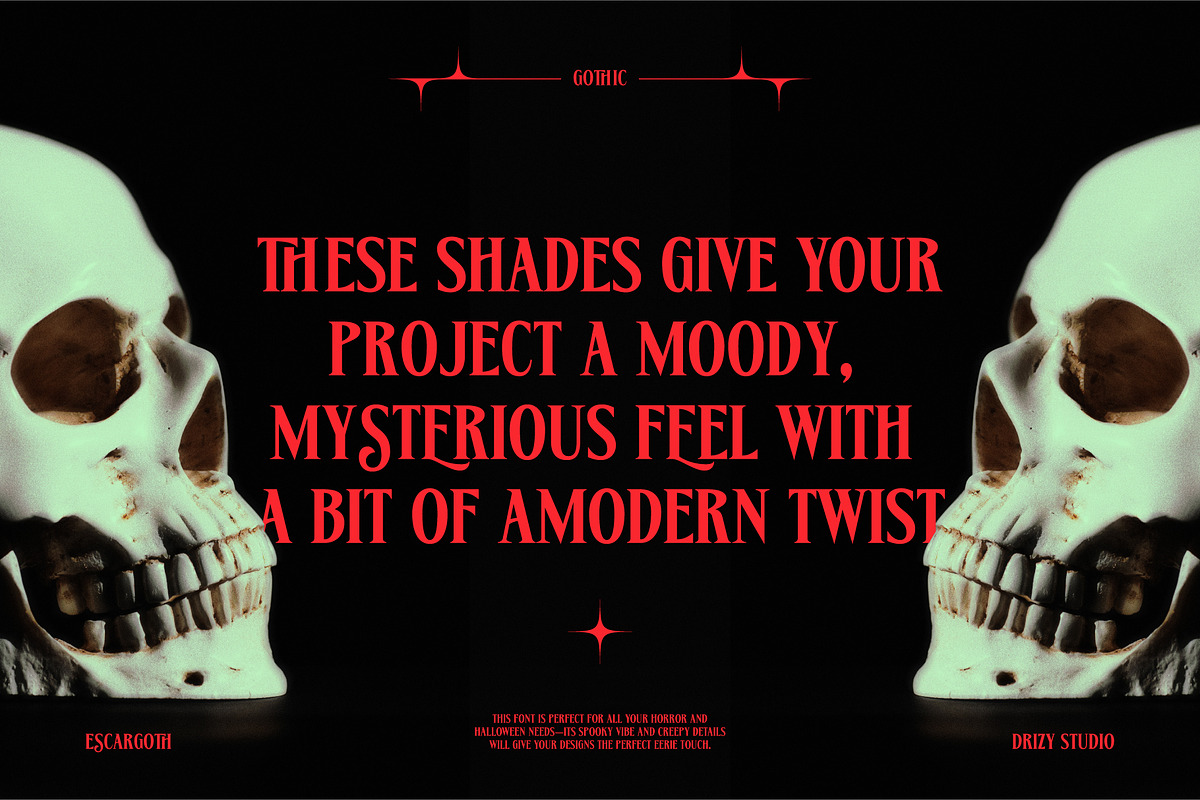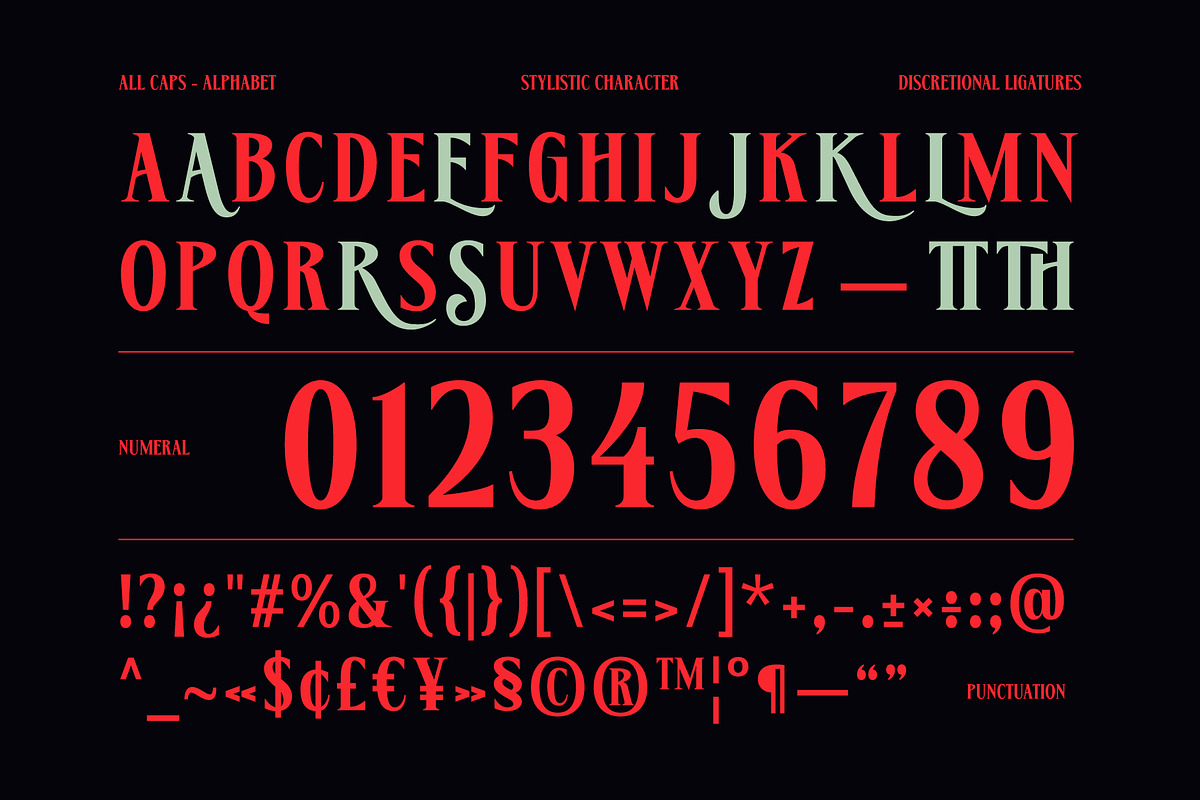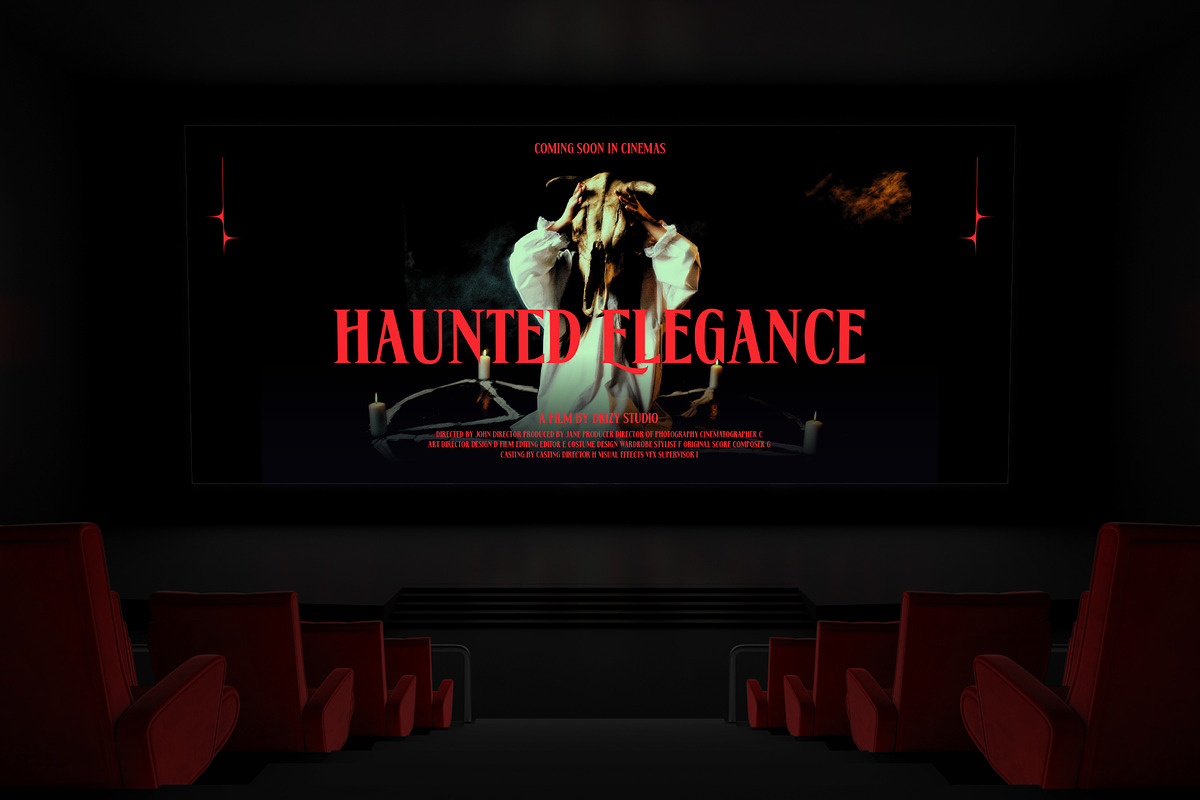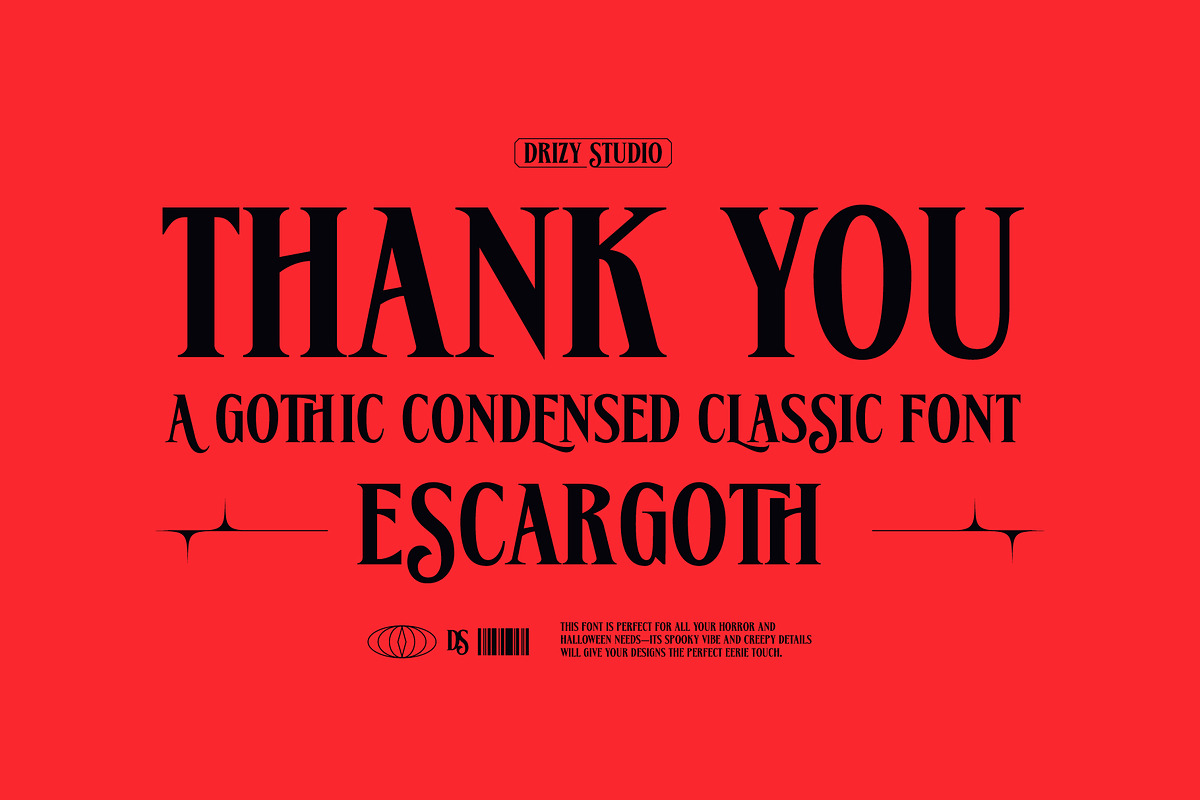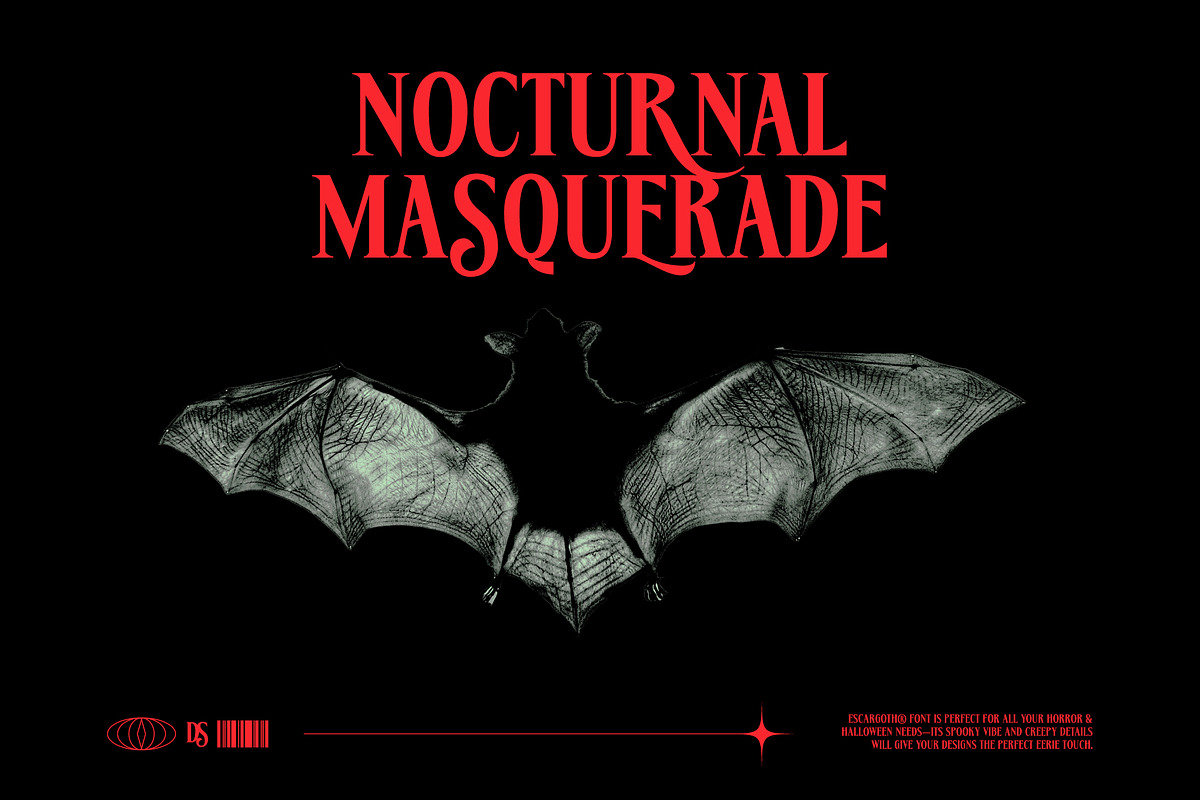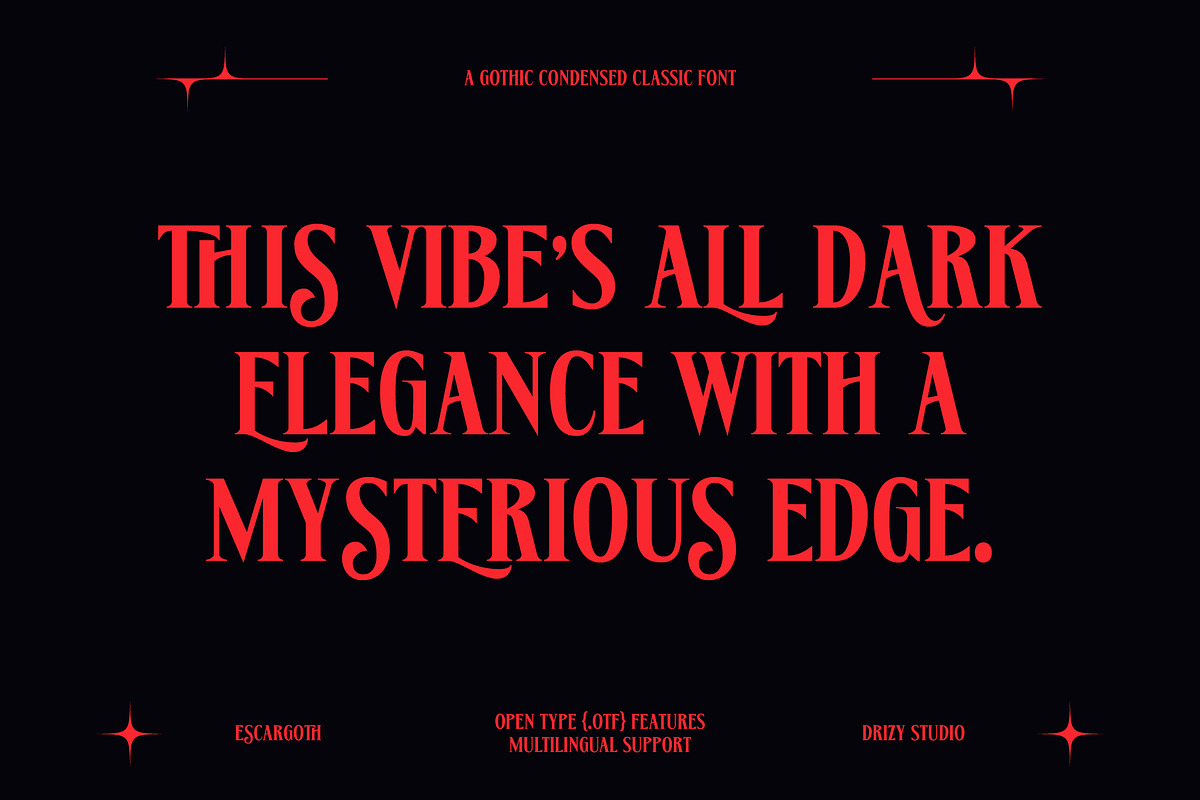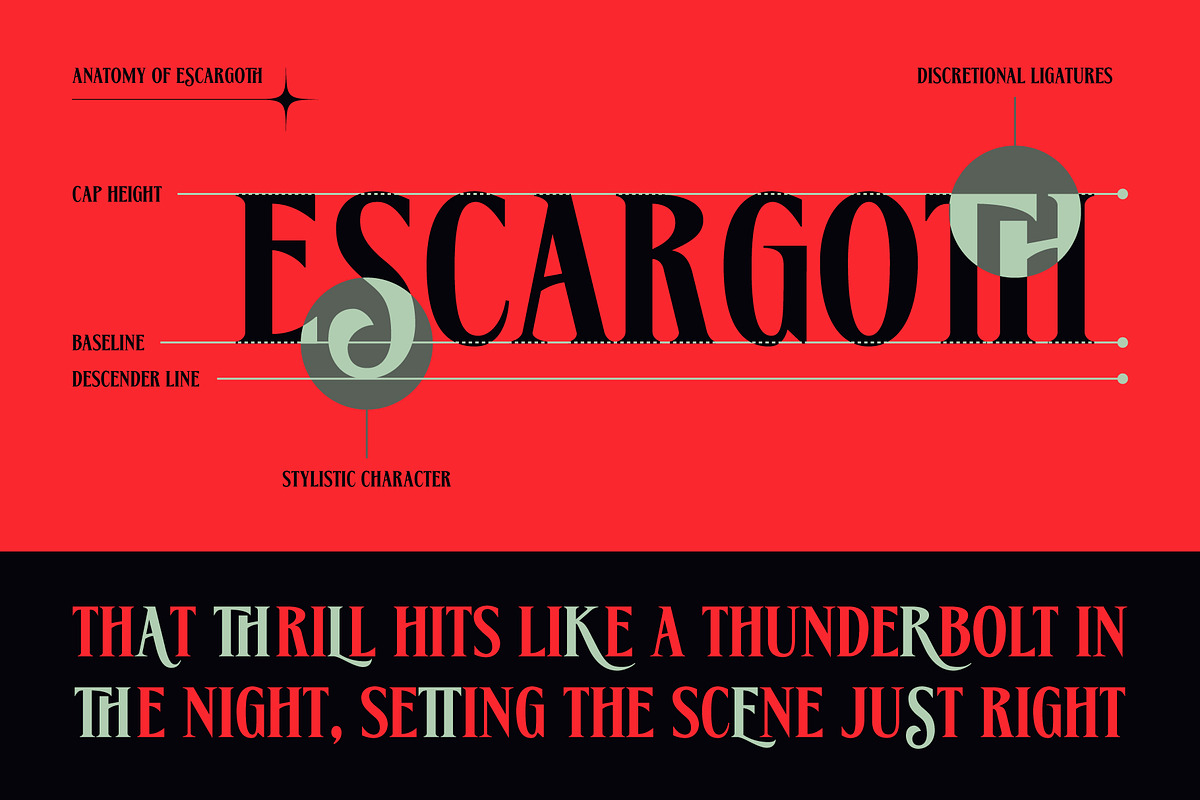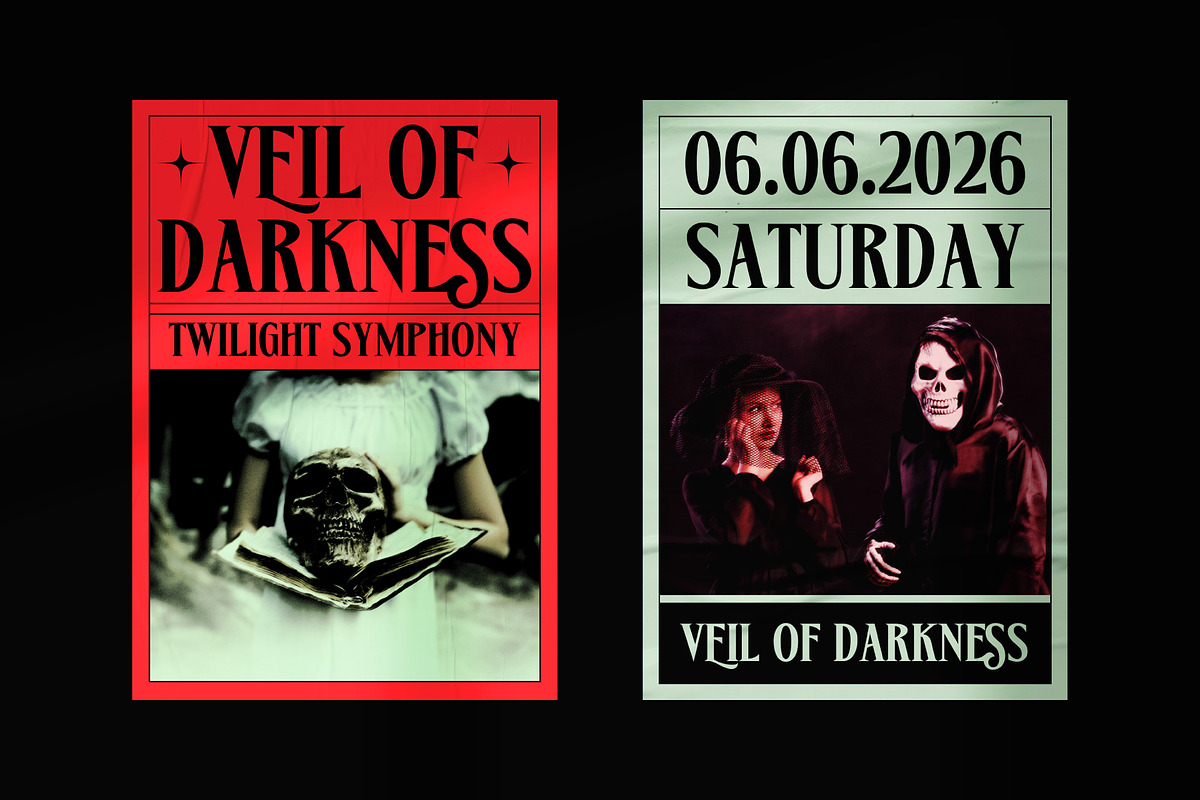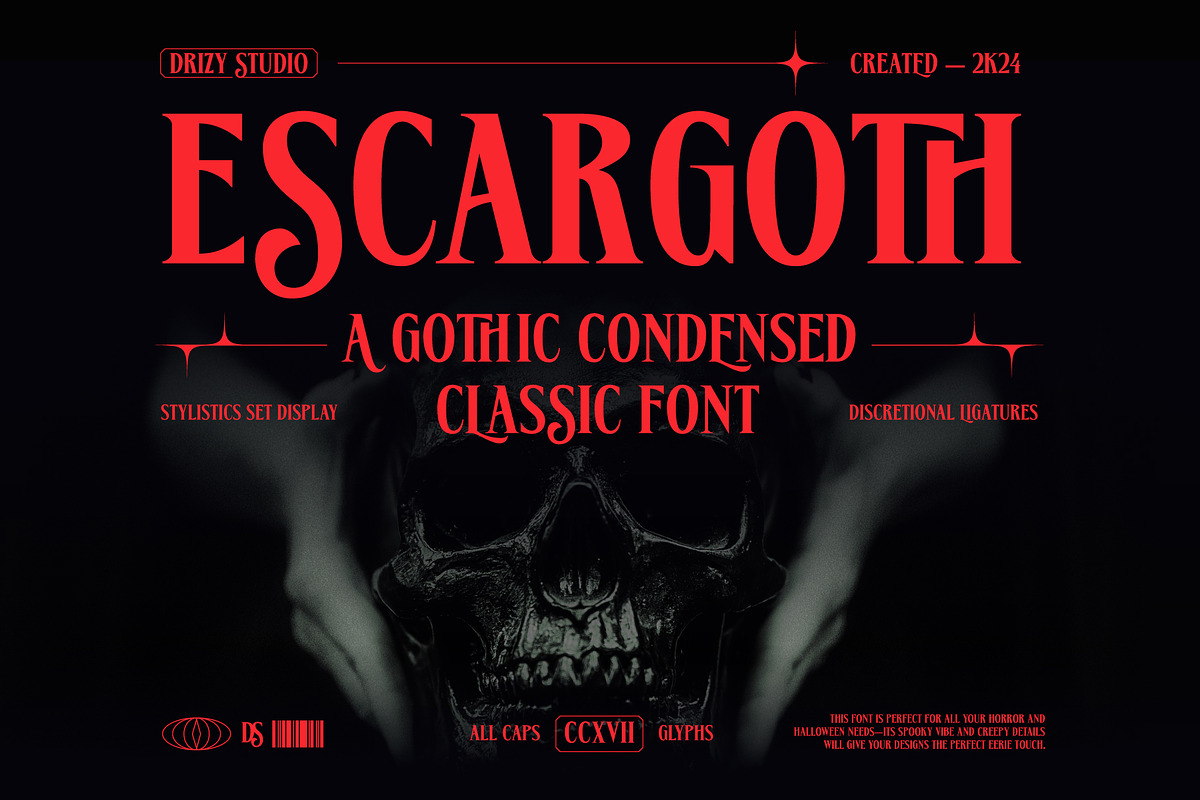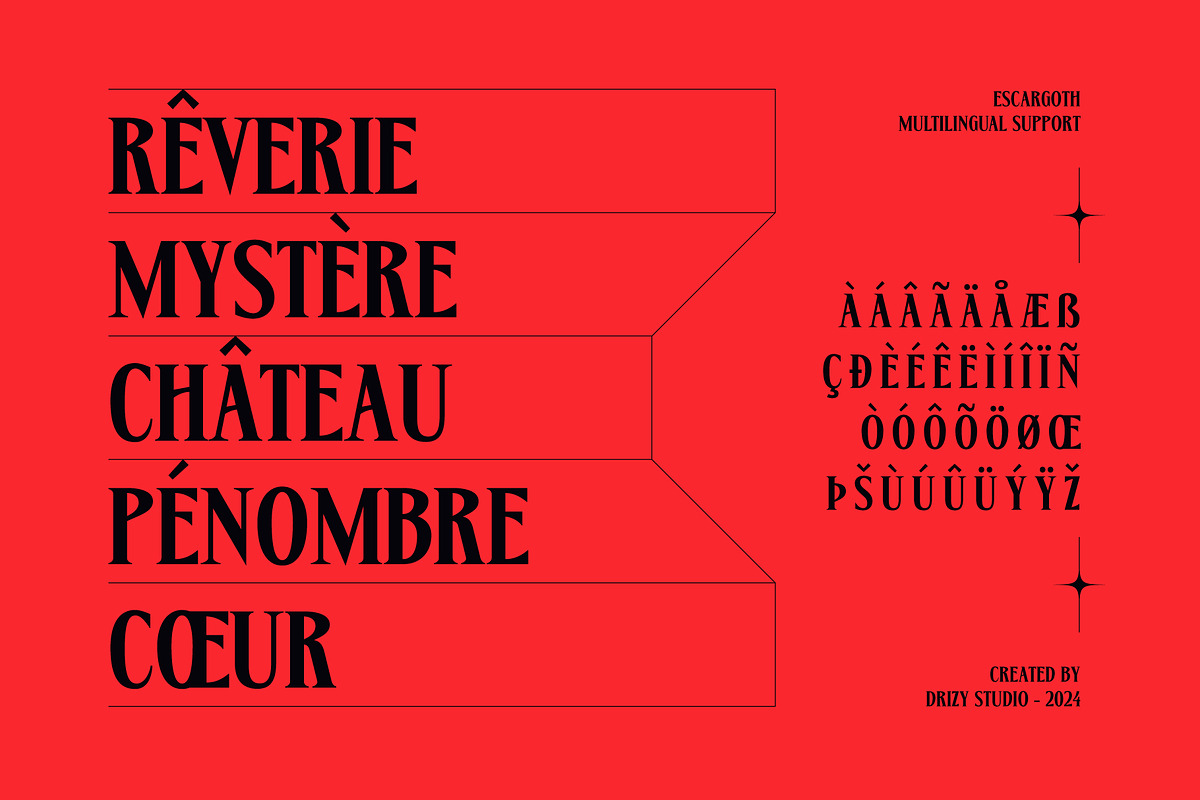
Escargoth – Gothic Condensed Classic
Escargoth – Gothic Condensed Classic Font
Escargoth is a spine chilling typeface that oozes dark elegance and vintage allure, perfect for your Halloween themed designs. This font combines the haunting beauty of Gothic script with a condensed, classic structure, making it ideal for creating eerie titles, ghostly invitations, and spooky branding. With its sharp edges and intricate details, Escargoth Gothic Condensed Classic evokes the mysterious ambiance of old horror films and gothic literature, making it the perfect choice for adding a touch of macabre sophistication to your Halloween projects.
Escargoth Script features:
- Character Set (All Caps)
- Punctuation & Numbers
- Stylistics Set 01 & 02
- Discretional Ligatures
Elevate and explore the design possibilities with this Halloween Design Font!